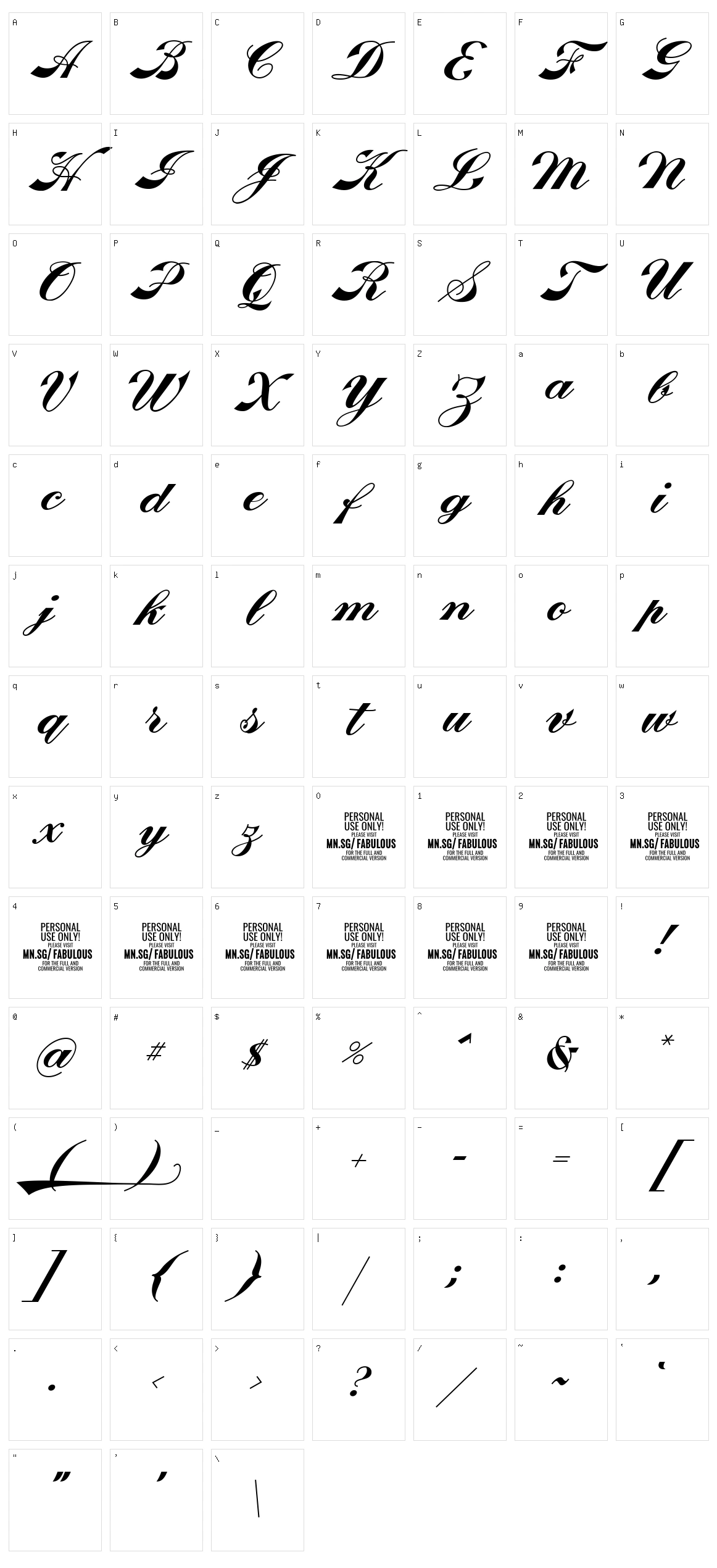
Fabulous is a classic logotype script.
Bold but delicate, this script has both class and genuinity.
The typeface also includes a white, outlined version called Fabulous Outline.
Write _ after a word to get a swash.
Example: Fabulous_
With ligatures activated, write _ and a number for more swashes.
Example: Lovely_5 Font_2